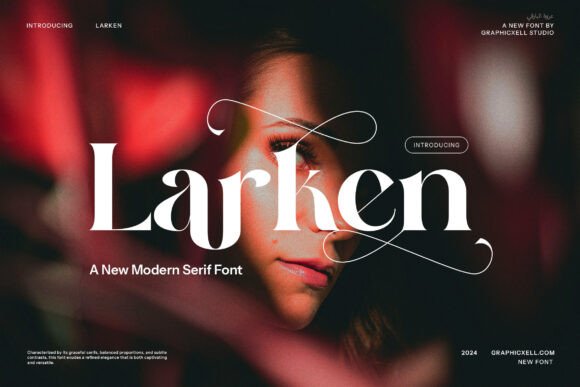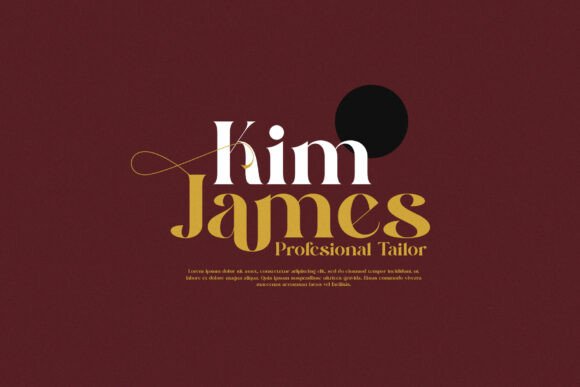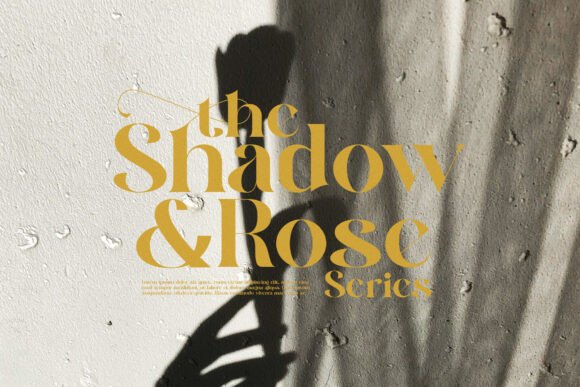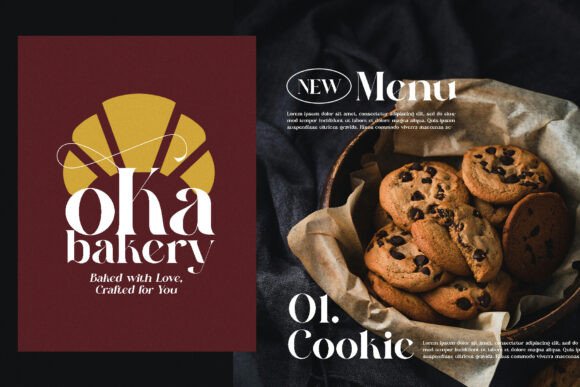
Larken Font: Elegant Ligature Serif for Modern Branding & Logo Design
About the Larken Font
Experience the unique personality of Larken Font, a font designed for impact. Larken is a modern serif typeface that offers a fashionable touch. It doesn’t only look sophisticated but also charming. What makes it interesting is the delicate curves, bringing an elegant style. The classy ligature also becomes one of its characteristics and appeals. With calligraphic influences, this font gives a contemporary feeling. So, it is perfect for various designs such as beauty designs, elegant crafting, layout designs, ad branding, design templates, etc.
Larken excels in applications requiring a touch of refined elegance, such as logos, short headlines, and invitations. Its calligraphic influences make it particularly suitable for branding projects in the beauty, fashion, or luxury goods sectors. However, the delicate serifs and ligatures may become illegible at smaller sizes, making it unsuitable for extended body text or user interface elements.
Pairing Larken effectively requires considering its inherent sophistication. A clean, geometric sans-serif like Montserrat would provide a modern counterpoint, balancing its curves. Alternatively, a warmer, more traditional serif like Garamond could enhance its classic feel, creating a timeless yet contemporary pairing. Avoid overly playful or informal fonts, as they may clash with Larken’s refined personality.
Larken’s overall personality is best described as sophisticated and elegant, with a modern twist. Its charm lies in the subtle interplay of its calligraphic details and contemporary structure. This makes it ideal for brands aiming for a luxurious yet approachable aesthetic.